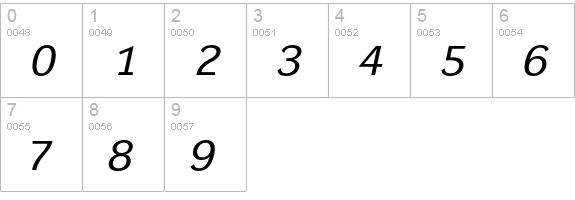
Dynamo Italic R X E Font Details
Dynamo Italic R X E is a distinctive, italic variant in the Dynamo typeface family \xE2\x80\x94 well suited to design and typography projects.